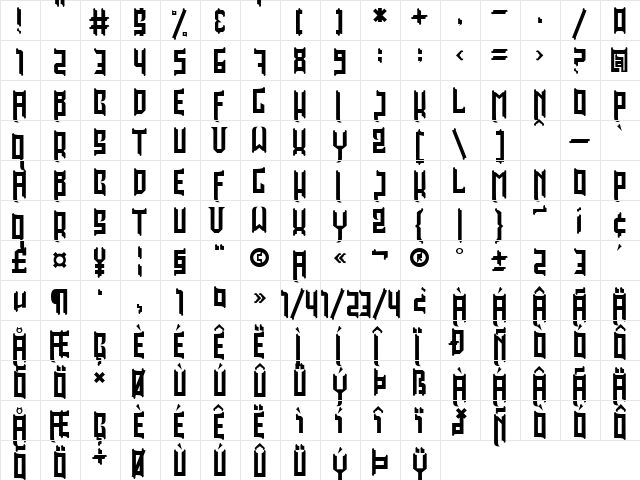
KORALENS Regular
| Foundry | Fadly Hedi Harahap |
| Designer | Fadly Hedi Harahap |
Design Context for KORALENS Typeface
KORALENS is a composed and adaptable typeface that performs quietly and consistently across a wide range of design contexts.